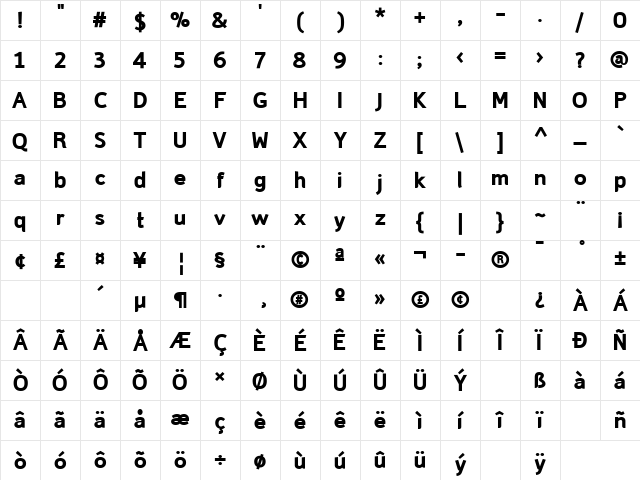
Complete Domestos98 BlacK glyph index. Displaying only characters natively supported by Domestos98 BlacK font.
Domestos98 is a composed and adaptable typeface that performs quietly and consistently across a wide range of design contexts.
Who designed the Domestos98 BlacK font?